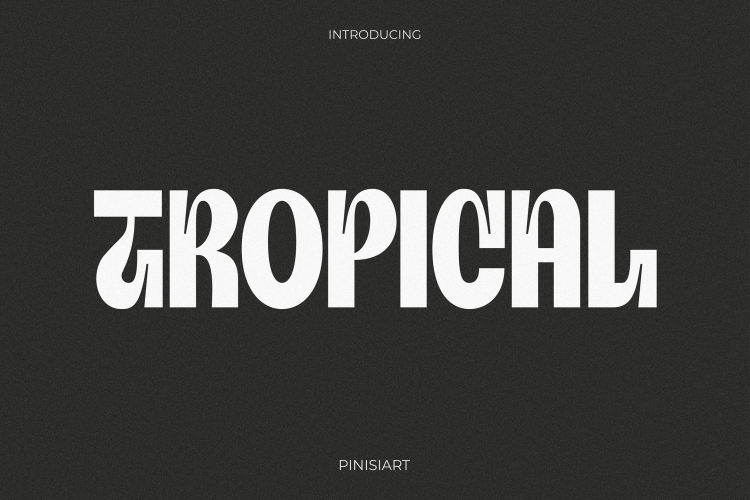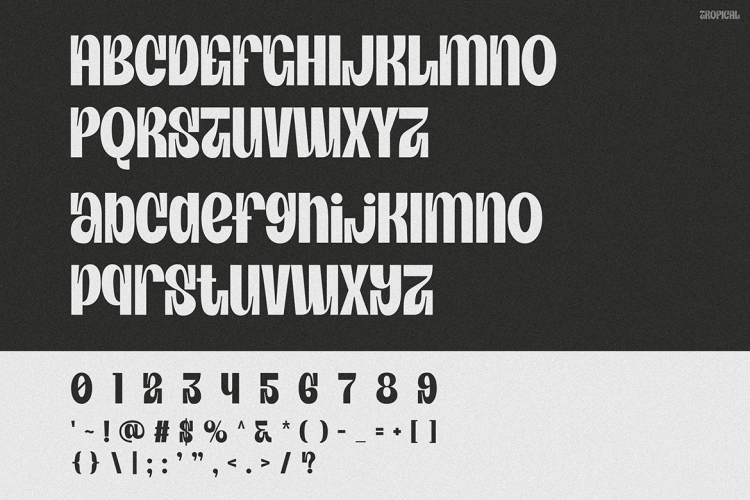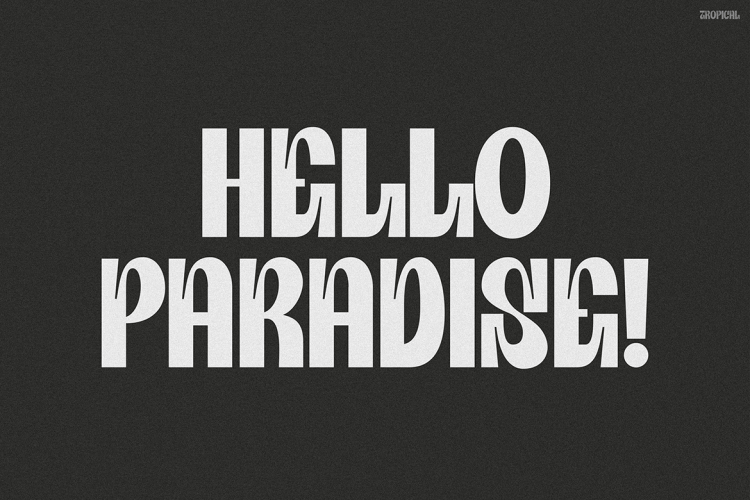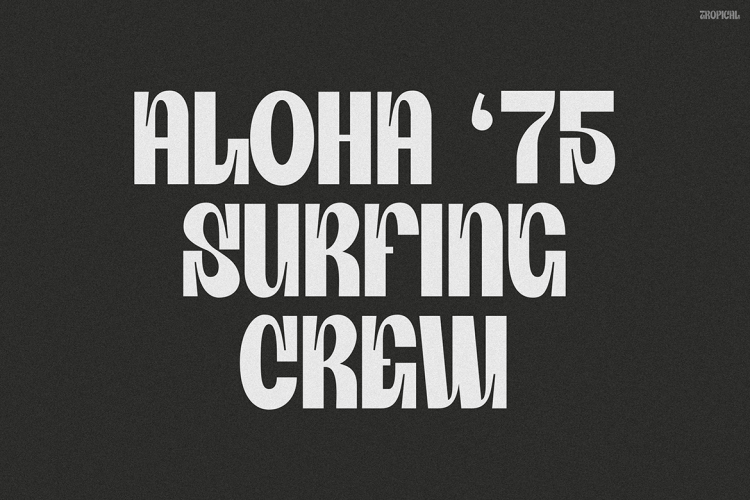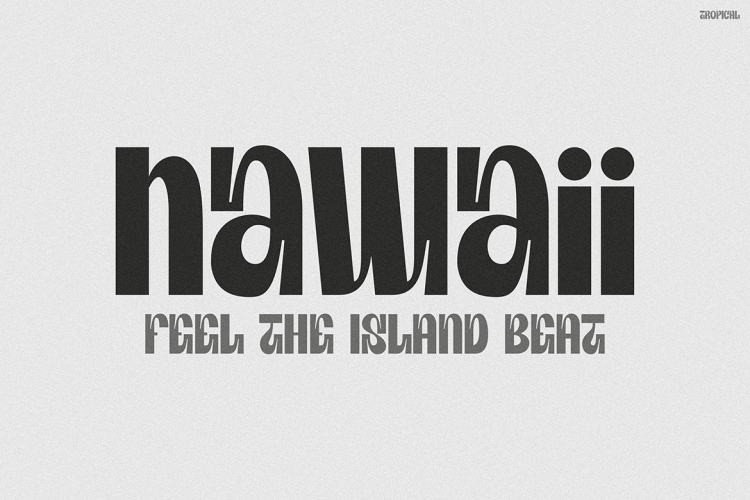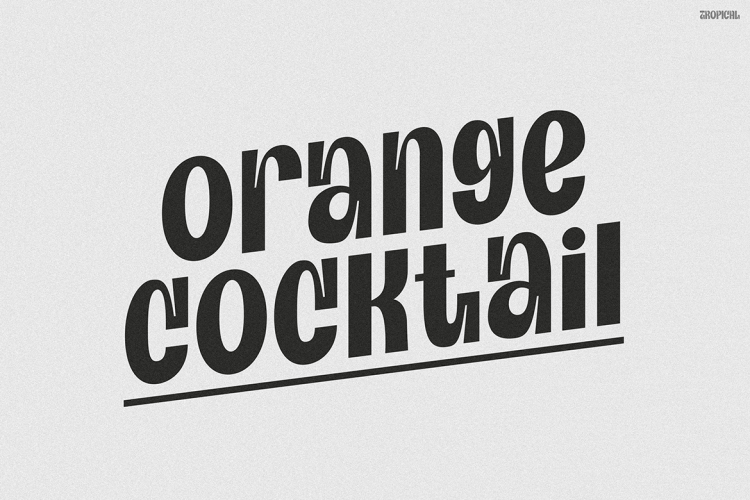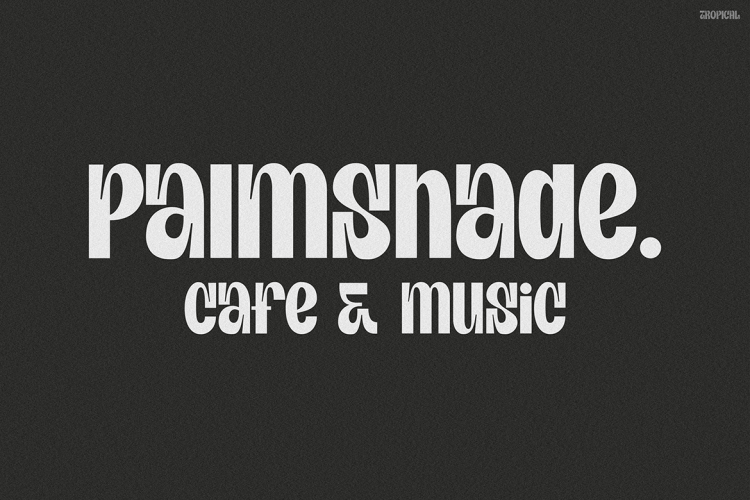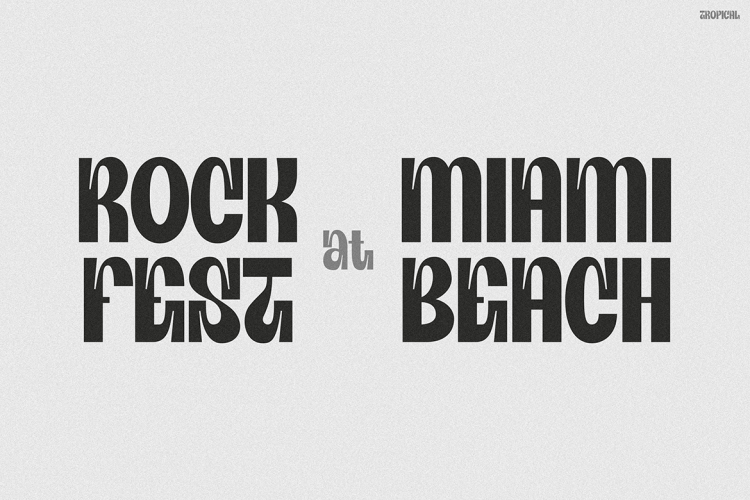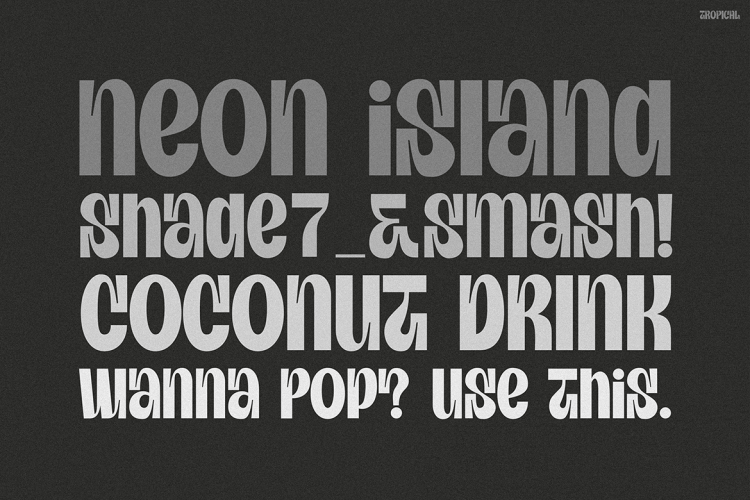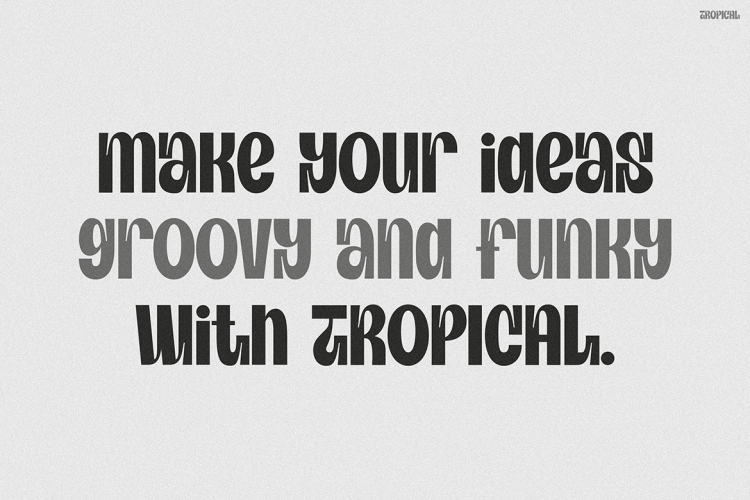
Instagram Font TROPICAL is a bold and stylish typeface that grabs attention effortlessly. It blends a groovy retro vibe with modern design elements, creating a look that feels both nostalgic and fresh. Each letterform features playful curves and strong vertical strokes, which add rhythm and personality to the design. Moreover, the fontโs creative letter shapesโlike the quirky โaโ or the flowing โrโโmake it truly unique. Because of this, it offers a perfect balance between fun and sophistication. As a result, this font is ideal for visual branding, social media graphics, or editorial layouts that demand attention.
In addition, its strong contrast and consistent structure help maintain readability, even at smaller sizes. This means you can use it confidently across digital and print formats. Whether youโre designing an event poster or an Instagram story highlight, Instagram Font TROPICAL adds a vibrant twist that enhances your visual message.
Instagram Font TROPICAL Perfect For:
Instagram Font TROPICAL is especially designed for creatives who want to bring energy and character into their work. Whether you’re crafting a personal brand or launching a product line, this font helps your visuals speak louder.
Content Creators & Influencers: Use it to upgrade your social media feed. For instance, it makes stories, reels, and post captions feel more engaging.
Brand Designers: Ideal for summer-themed goods, cocktails, or beachwear labels. In other words, it brings warmth and excitement to product visuals.
Poster & Album Cover Artists: Create attention-grabbing headlines and titles. Additionally, the retro flavor makes it perfect for music or nightlife designs.
Event Planners: Great for tropical wedding invites, travel event flyers, or any celebration that needs a fun and upbeat touch.
Furthermore, the font remains visually bold without losing legibility. Because of that, itโs a flexible choice for a wide range of creative projects.
In conclusion, Instagram Font TROPICAL isnโt just a typefaceโitโs a whole mood. It invites your audience into a carefree, sun-soaked world with every word. So if youโre looking for something playful yet professional, vibrant yet readable, this font is your next design essential. Try it today and make your project unforgettable!